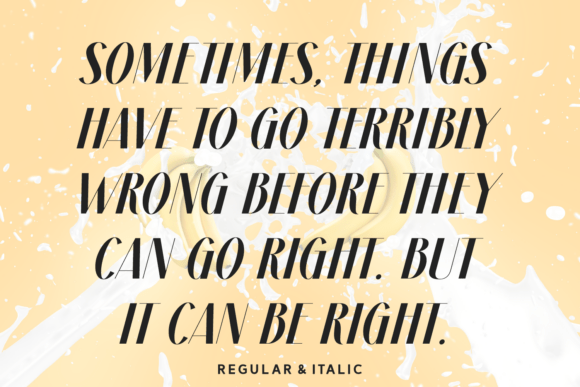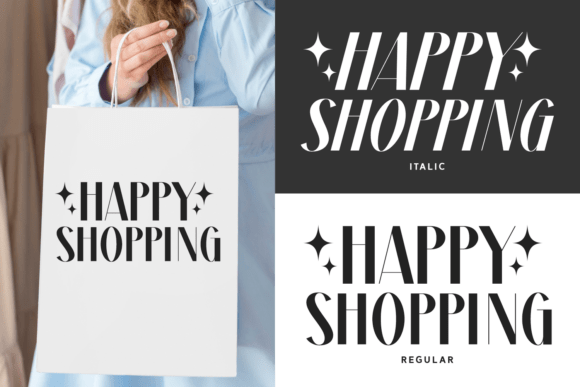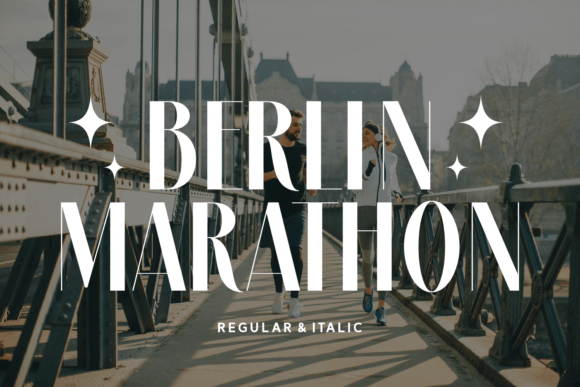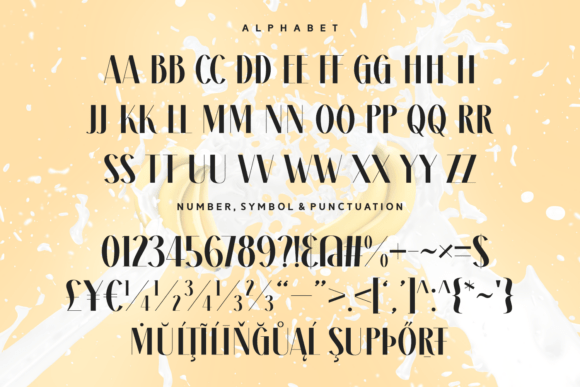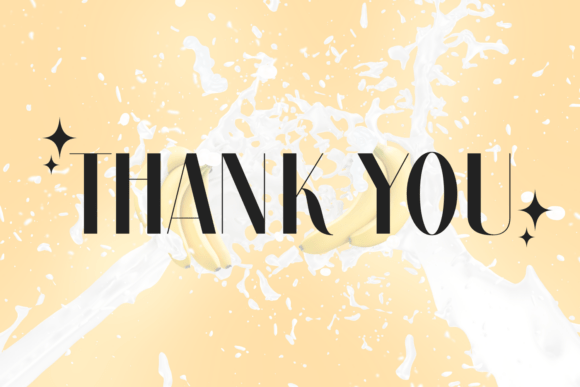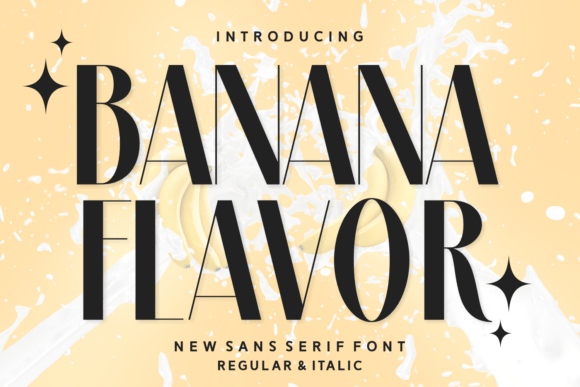
When Typography Meets Personality
Have you ever stared at a beautiful design, wondering what makes it tick? For designers, it’s not just about aesthetics, but about creating an experience that resonates with the audience. For me, that moment came when I stumbled upon the “Banana Flavor Font” – a classic Sans Serif font that perfectly blends elegance with modernity.
This versatile font is designed to add an authentic touch to various creative projects, from photography to branding materials. Its neat and clean lines make it stand out on book covers, magazines, and packaging, exuding sophistication with each stroke. As a designer, I can attest that the “Banana Flavor Font” is a valuable asset, offering extensive multilingual support and perfectly balancing style and usability.
Banana Flavor Font Key Features
- Size: The font includes a total of 500 glyphs, covering a broad range of languages, including Latin, Cyrillic, and Greek scripts.
- Unique Characteristics: This font features a distinctive banana-inspired design, with curved lines and rounded shapes that evoke a sense of playfulness and fun.
- Font Weight and Style: Banana Flavor Font includes multiple font weights, ranging from Light to Bold, as well as a range of styles, such as Regular, Italic, and Script.
Designer Review: Banana Flavor Font
Overall, I was curious to dive into “Banana Flavor Font” and see what it has to offer. Here are my honest thoughts.
- The font’s playful and quirky vibe is definitely on point. It’s perfect for creating a fun and lighthearted atmosphere in your designs.
- The banana-inspired letterforms are clever and add a unique touch to the font.
- The font’s versatility shines through in its various weight options and ligatures.
- The font’s readability takes a hit at smaller sizes, making it more challenging to use in body text.
- The banana flavor might be too overpowering for some designers, which could limit its usage in more professional or corporate settings.
- The font’s uniqueness can also be a double-edged sword – while it’s great for creative projects, it might not be the best choice for more straightforward or minimal designs.
“Banana Flavor Font” is a fun and creative option for designers looking to add a playful twist to their projects. While it has its limitations, it’s perfect for projects that call for a lighthearted and quirky vibe.
Use the Banana Flavor Font to add a playful and whimsical touch to your designs. Pair it with bright colors and fun illustrations to create a cohesive and engaging visual identity.
The Banana Flavor Font is perfect for:
- Children’s products and packaging
- Party and event invitations
- Quirky and creative marketing campaigns